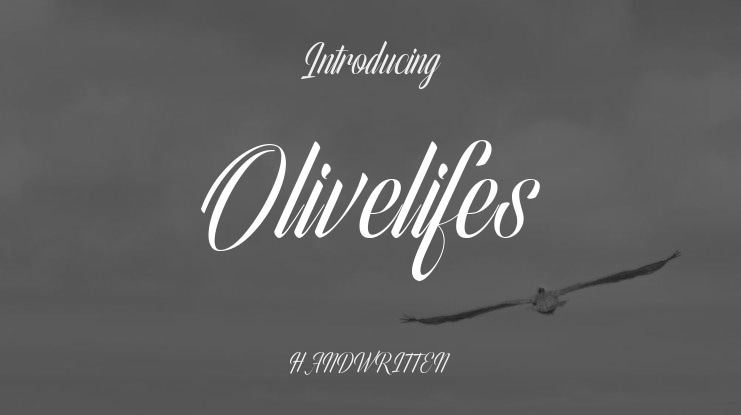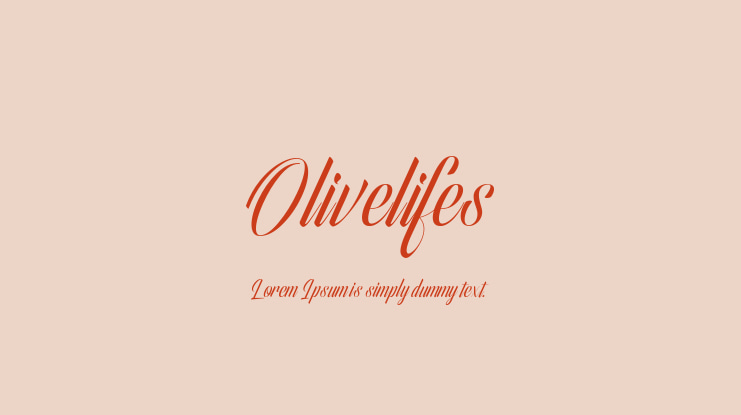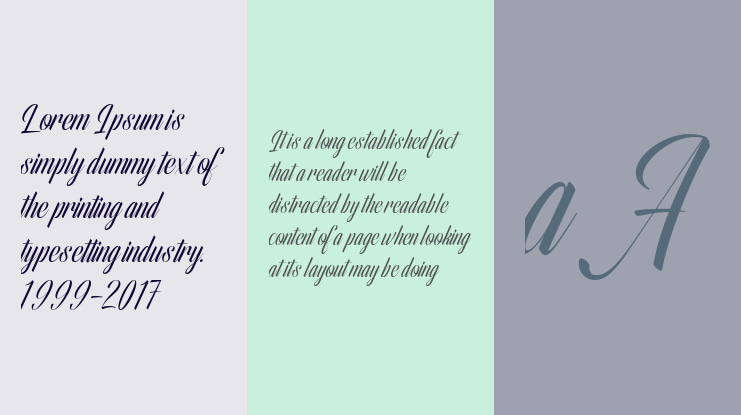
Olivelifes Font
Ni Nyoman Puspa Dewi
Introducing Olivelifes Script Font – a fierce, speedy, and dynamic typeface designed to bring a bold, energetic flair to your projects. With its sleek curves, stunning ligatures, and elegant swashes, Olivelifes Script Font captures the essence of motion and style in every stroke.